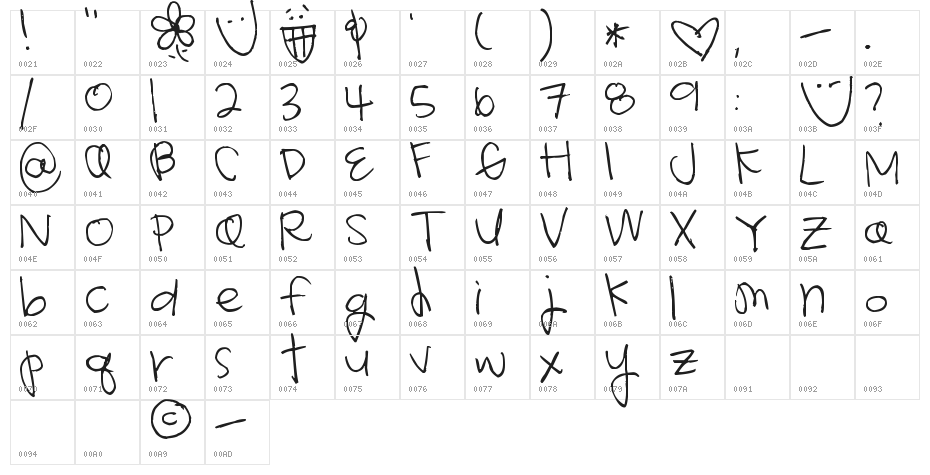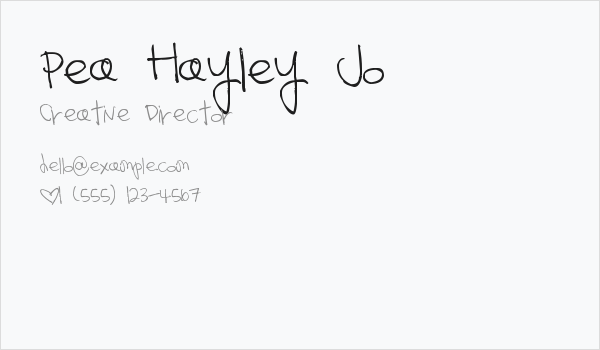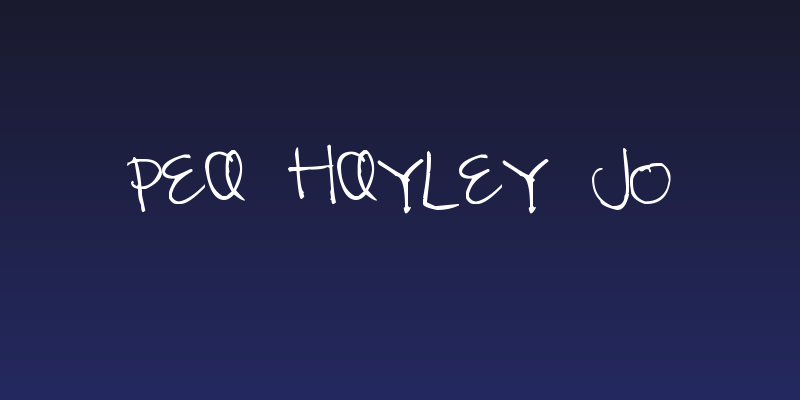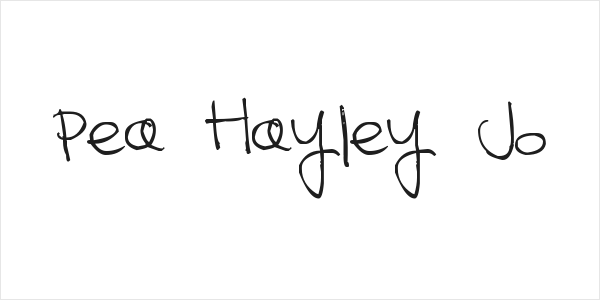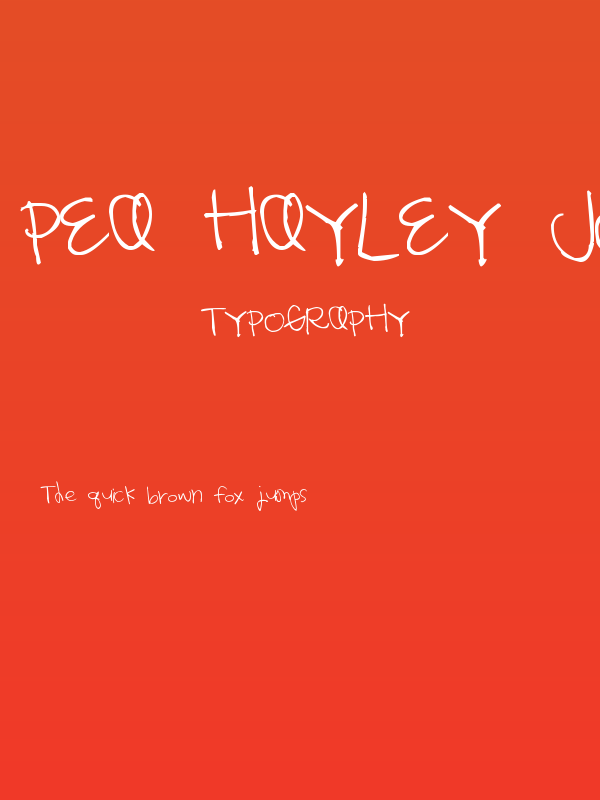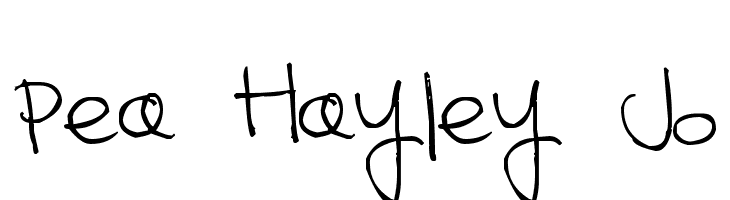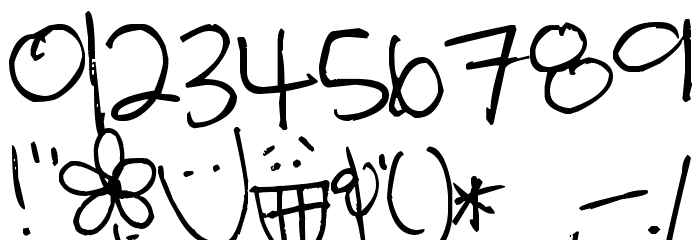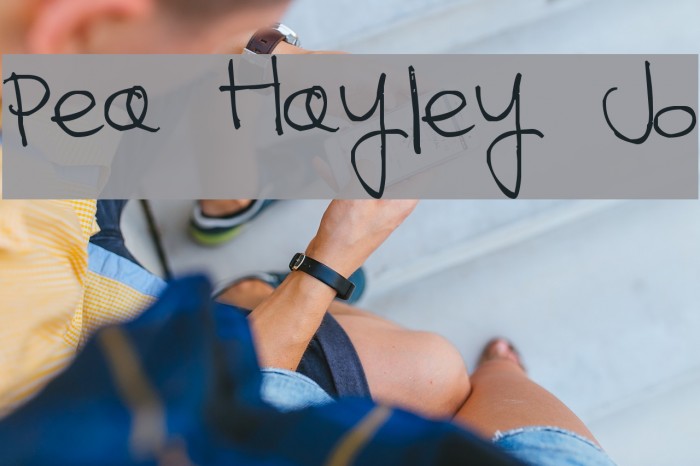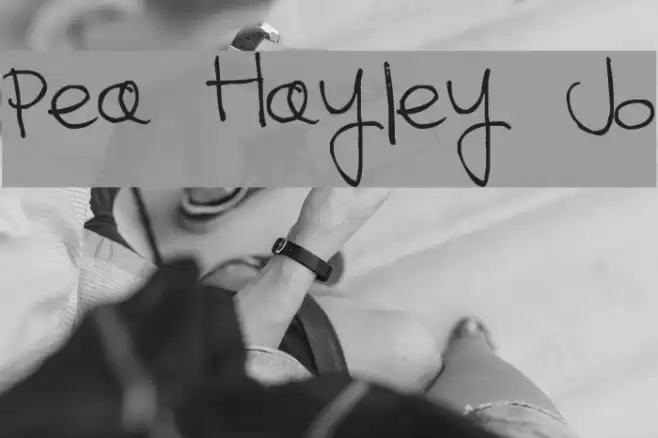
Pea Hayley Jo Font
Pea Hayley Jo Description
This font exudes a playful and casual handwritten style, characterized by its loose and informal strokes. The letters are slightly irregular, adding a personal touch reminiscent of a child's handwriting or a casual note. The uppercase and lowercase letters maintain a consistent style, with rounded edges and a slightly tilted appearance. Numbers and special characters follow the same whimsical design, making it suitable for projects that require a friendly and approachable feel. The overall look is charming and unpretentious, perfect for creative and informal applications.
| Overall Style | Casual, Playful |
| Use Case | Greeting cards, Informal notes, Creative projects |
| Proposed Projects | Ideal for children's books, greeting cards, personal notes, and informal invitations. |